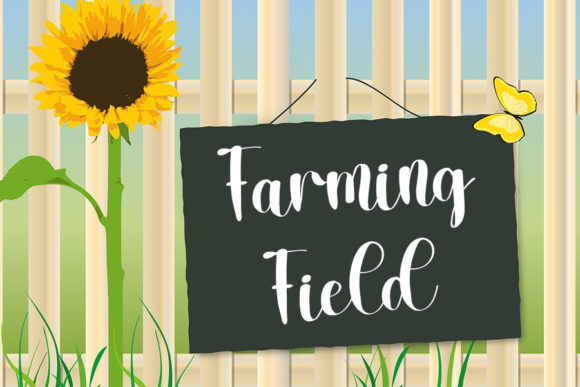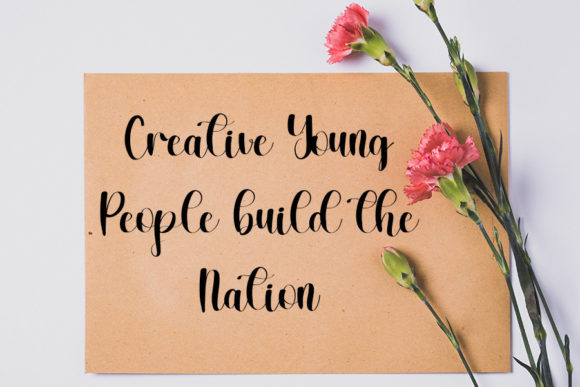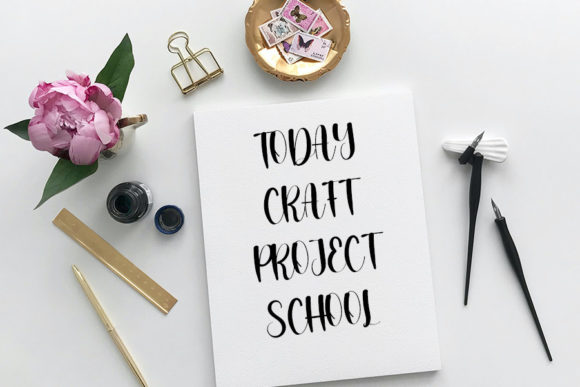
Introduction to Farmtime Font
Farmtime is a fun and casual handwritten font.
Why Choose Farmtime Font?
Farmtime Font offers exceptional quality and versatility, making it a valuable addition to your design toolkit. Whether you’re creating for personal projects or commercial use, Farmtime Font delivers professional results.